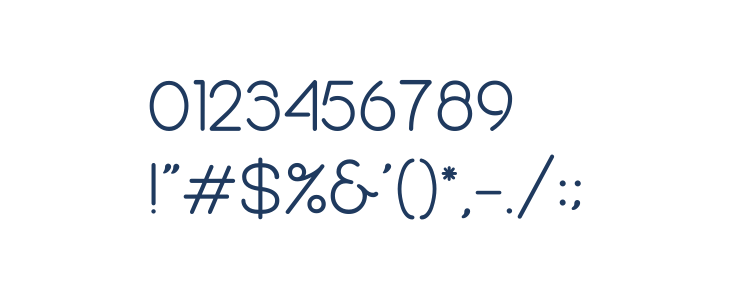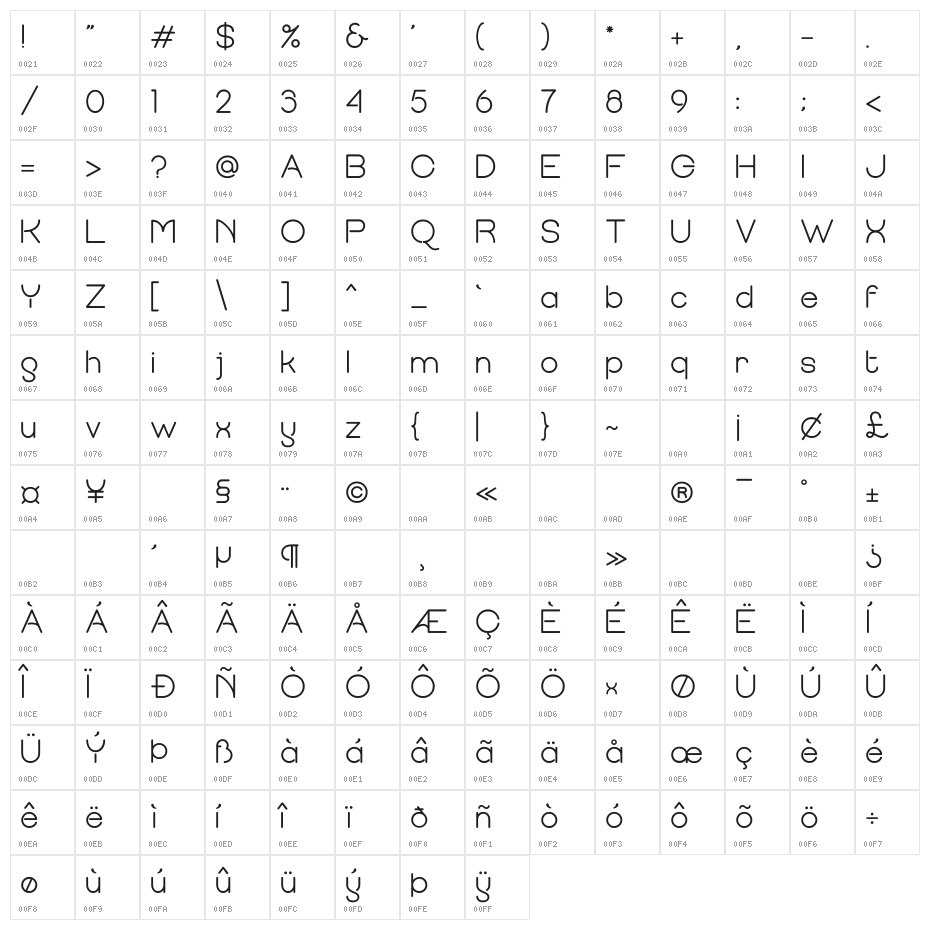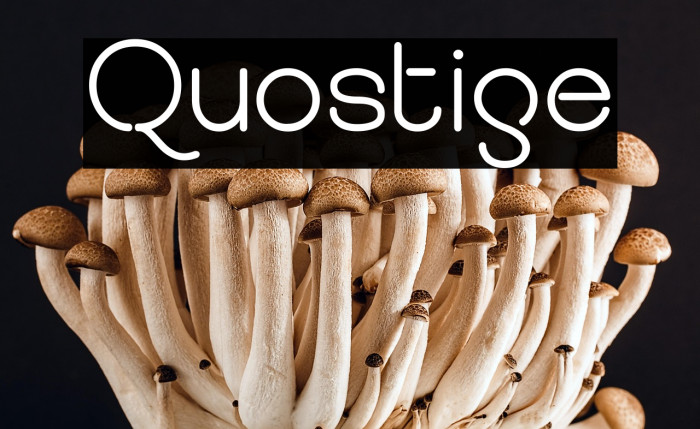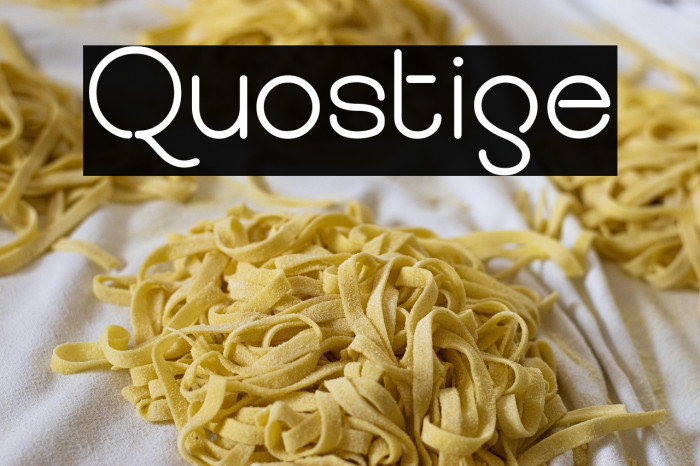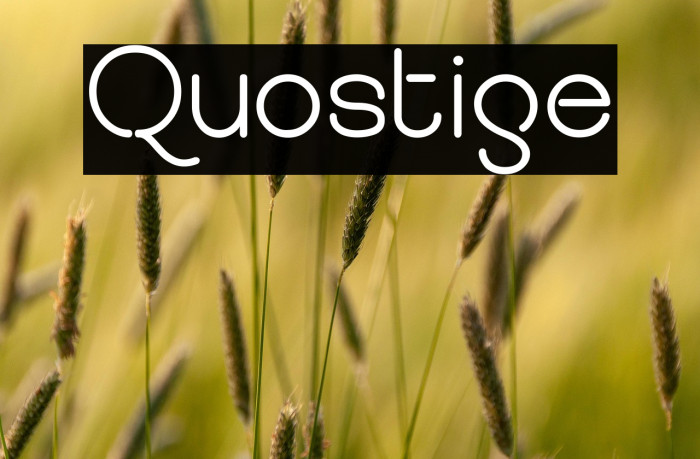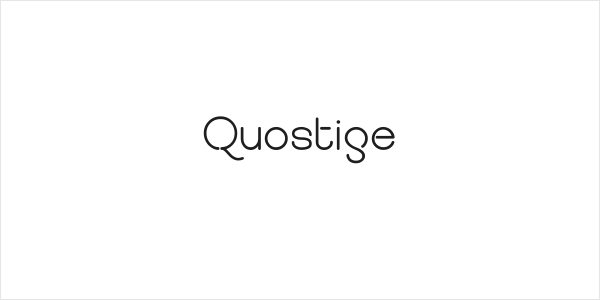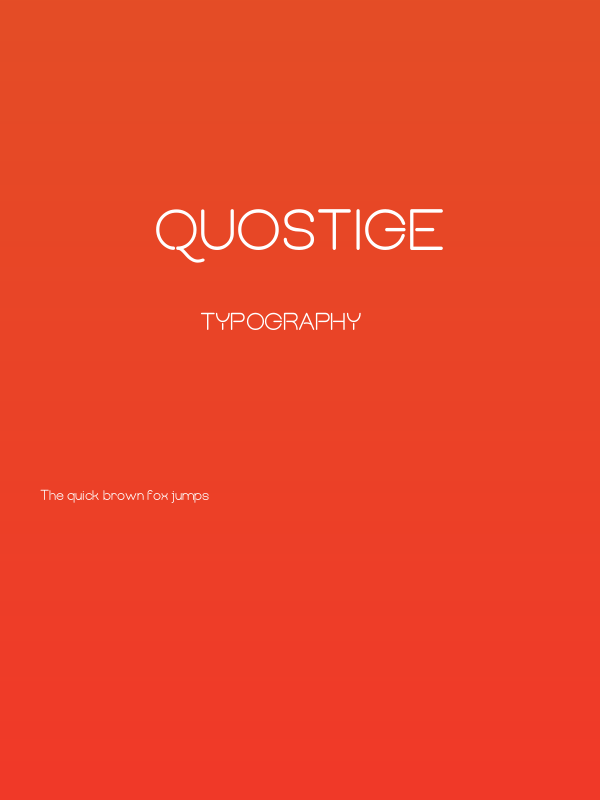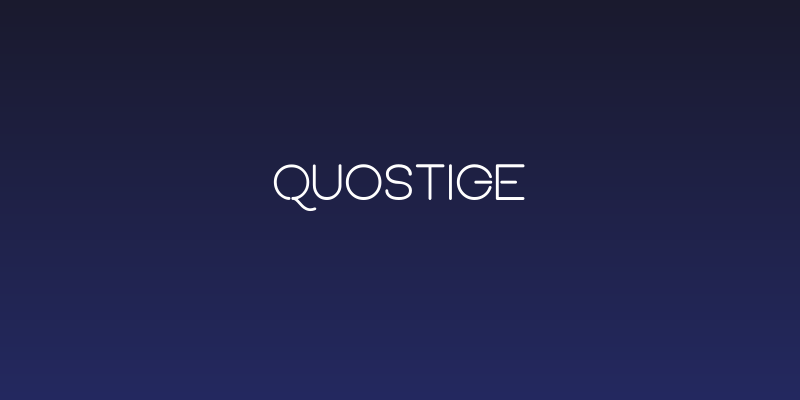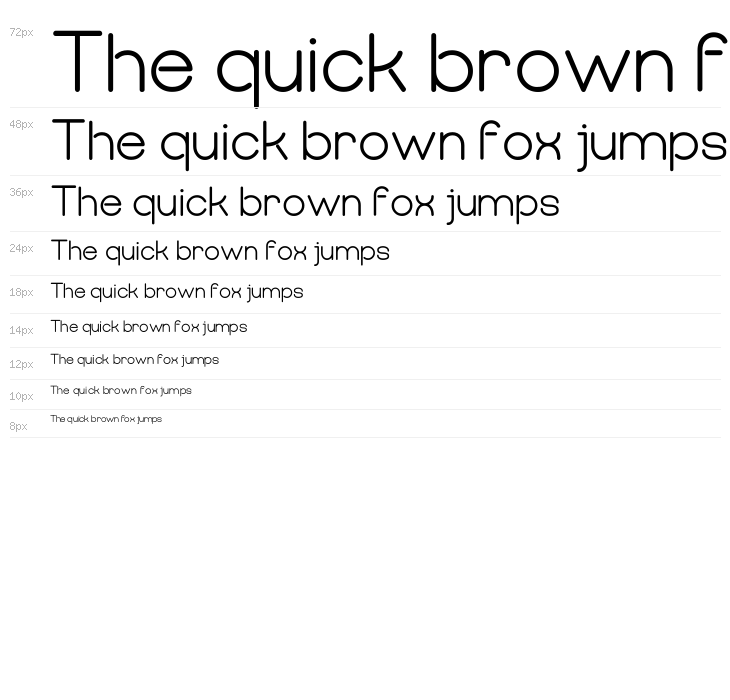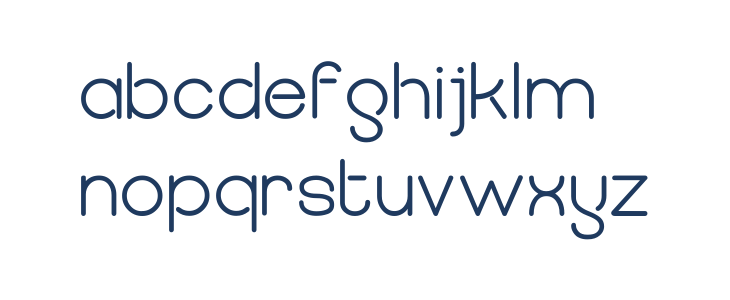
Quostige Font
Quostige Description
This font features a modern, geometric design with a clean and minimalist aesthetic. The characters are constructed with smooth, rounded edges and consistent stroke widths, giving it a sleek and contemporary look. The uppercase and lowercase letters maintain a uniform height, contributing to its orderly appearance. The numerals and special characters are designed to match the overall style, ensuring a cohesive visual experience. This font's simplicity and elegance make it versatile for various design applications, from digital interfaces to print media.
| Use Case | Headlines, Body text, Logos |
| Proposed Projects | Ideal for branding, digital interfaces, advertising, and editorial design. |